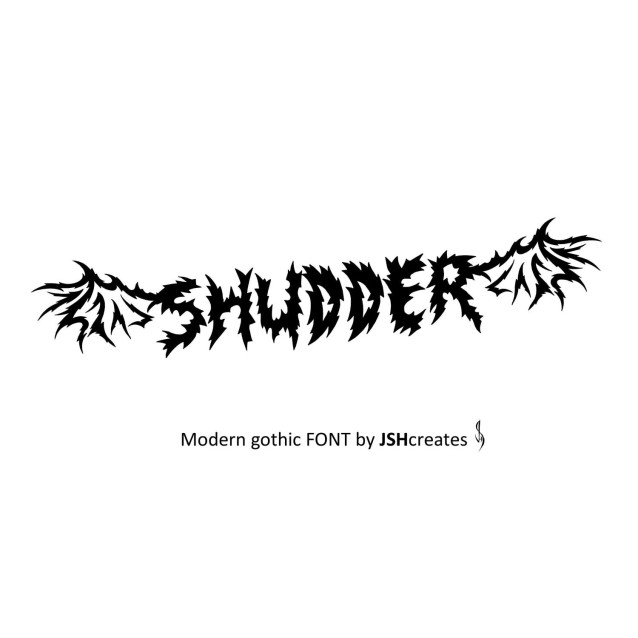
Shudder Font
Shudder Font – Modern Gothic font. Perfect for advertising and display purposes, including banners, book covers, shirts, posters, tattoos, logos and much more!